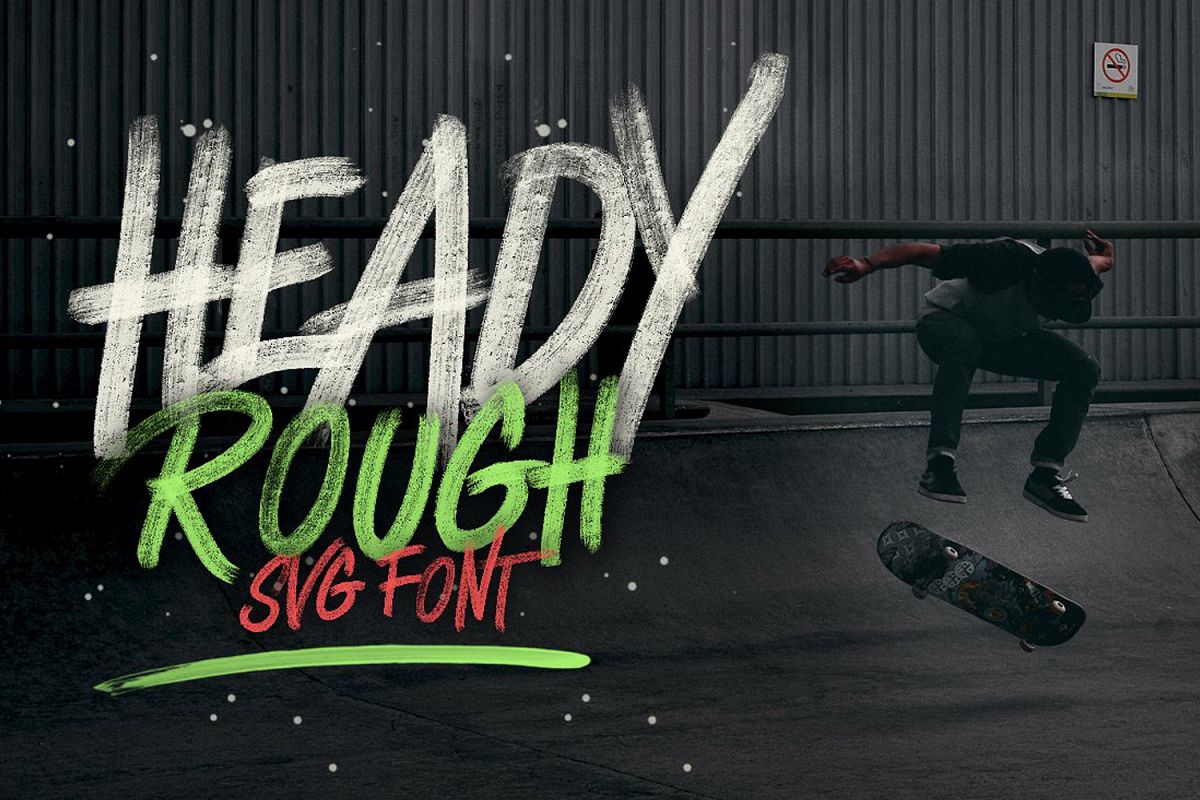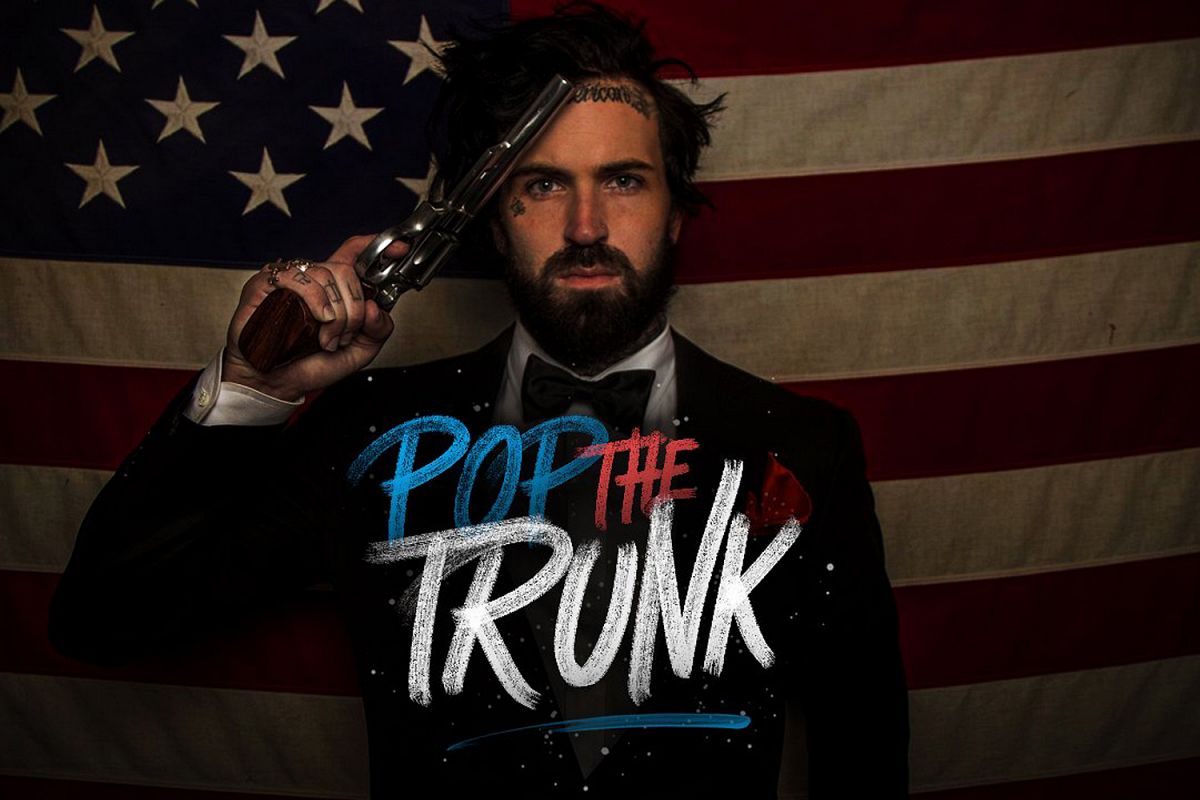
Heady Rough
Heady is my latest handpainted brush font, and my first which makes use of this new technology, by using high resolution brush stroke images with incredible definition, instead of the traditional vector format.font to the next level with a hyper realistic font that truly looks, Heady typeface uses brand new technology that makes way for more authentic looking fonts and is sure to grab the attention of customers and designers a like.Heady type is an experimental and versatile font. Suitable for digital lettering, prints, logo, poster, t-shirt, packaging and applicable for some type of graphic designWhat’s included: